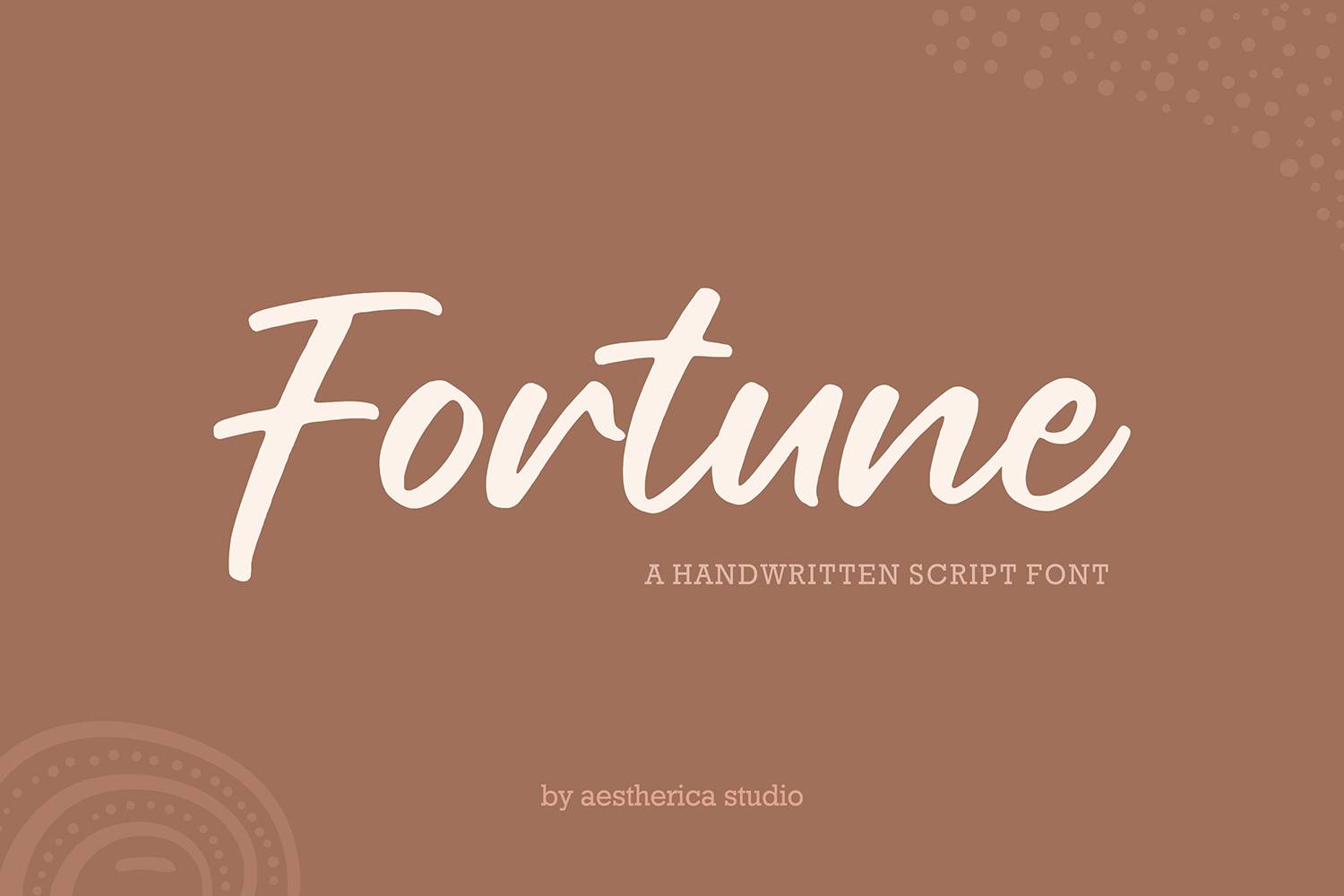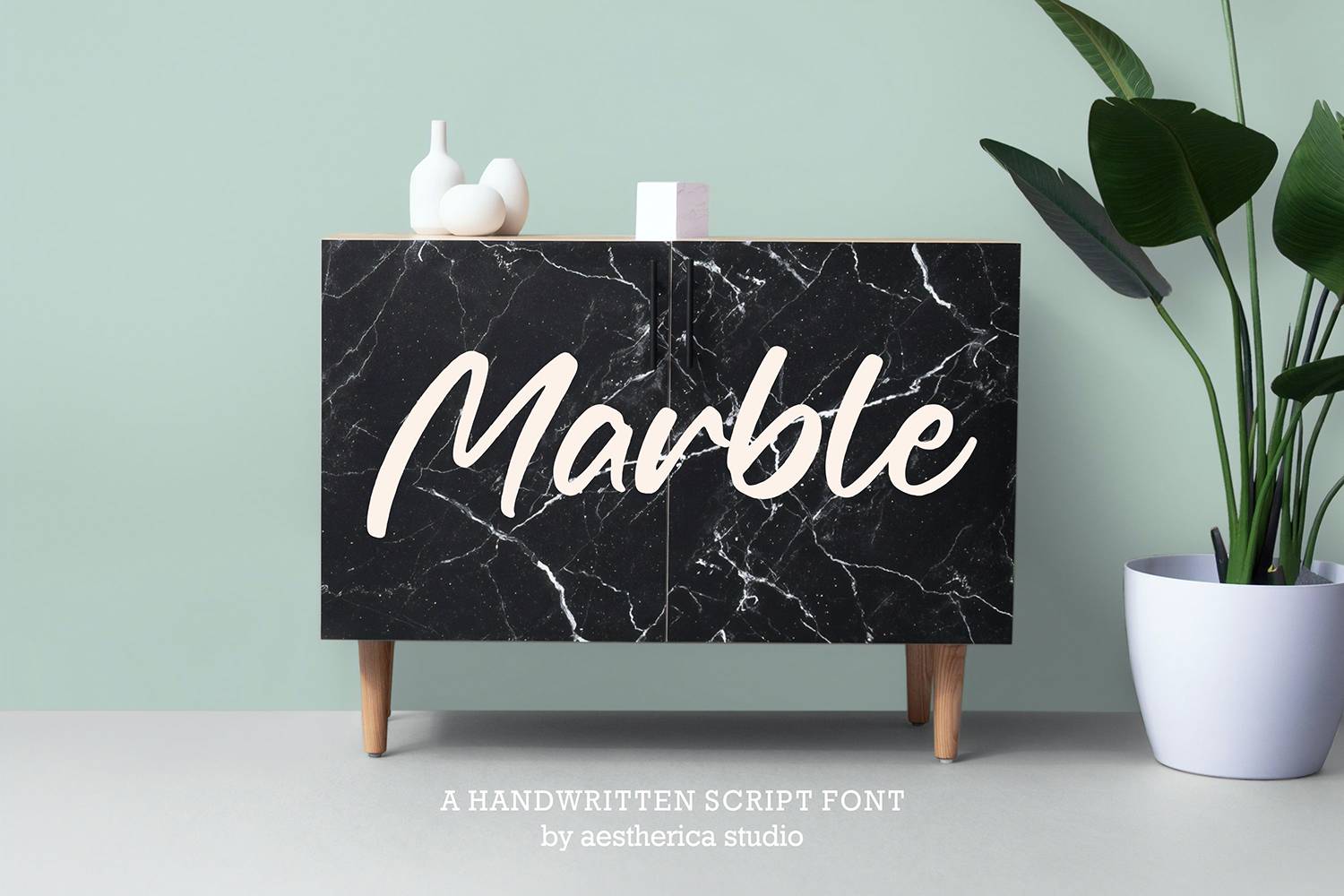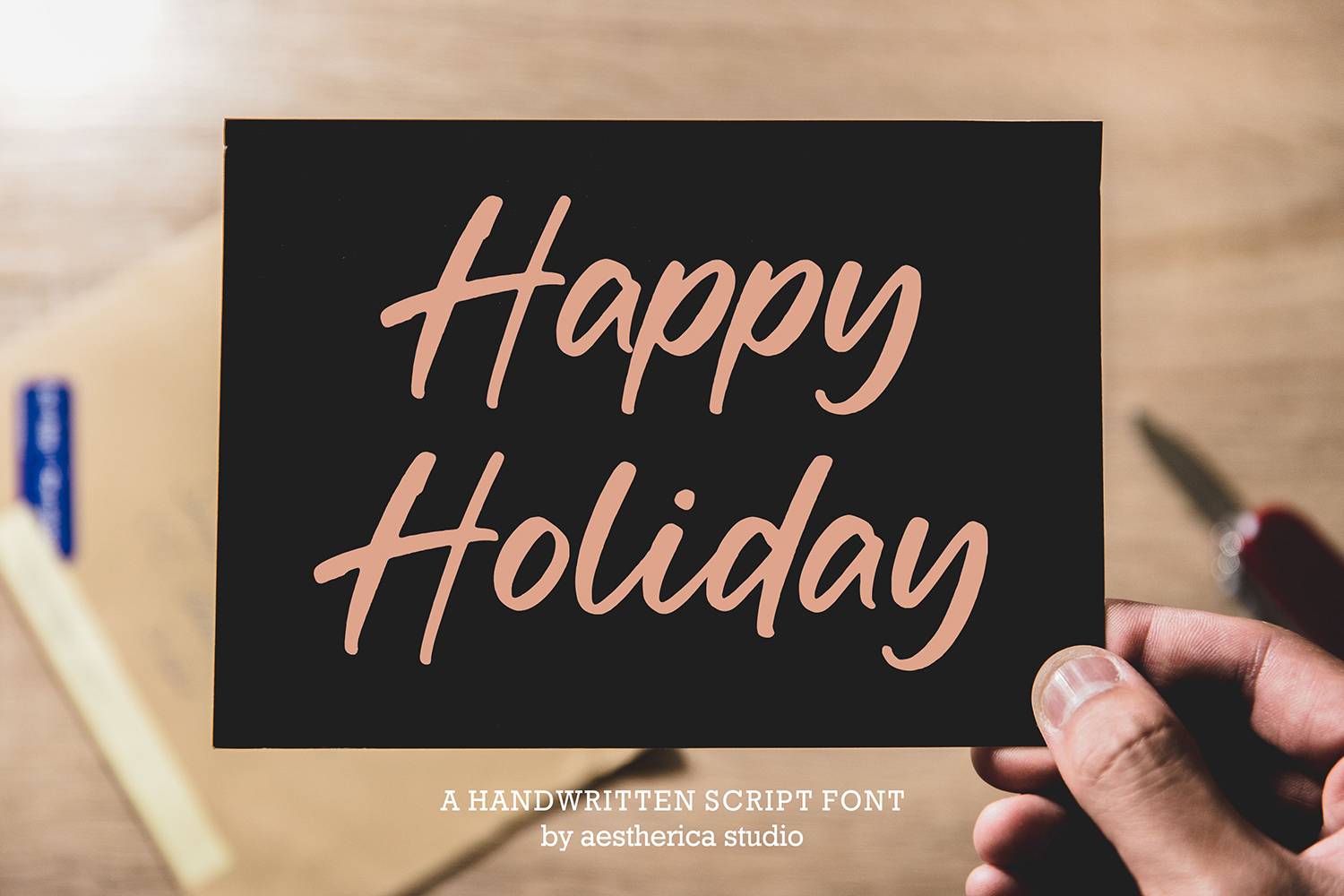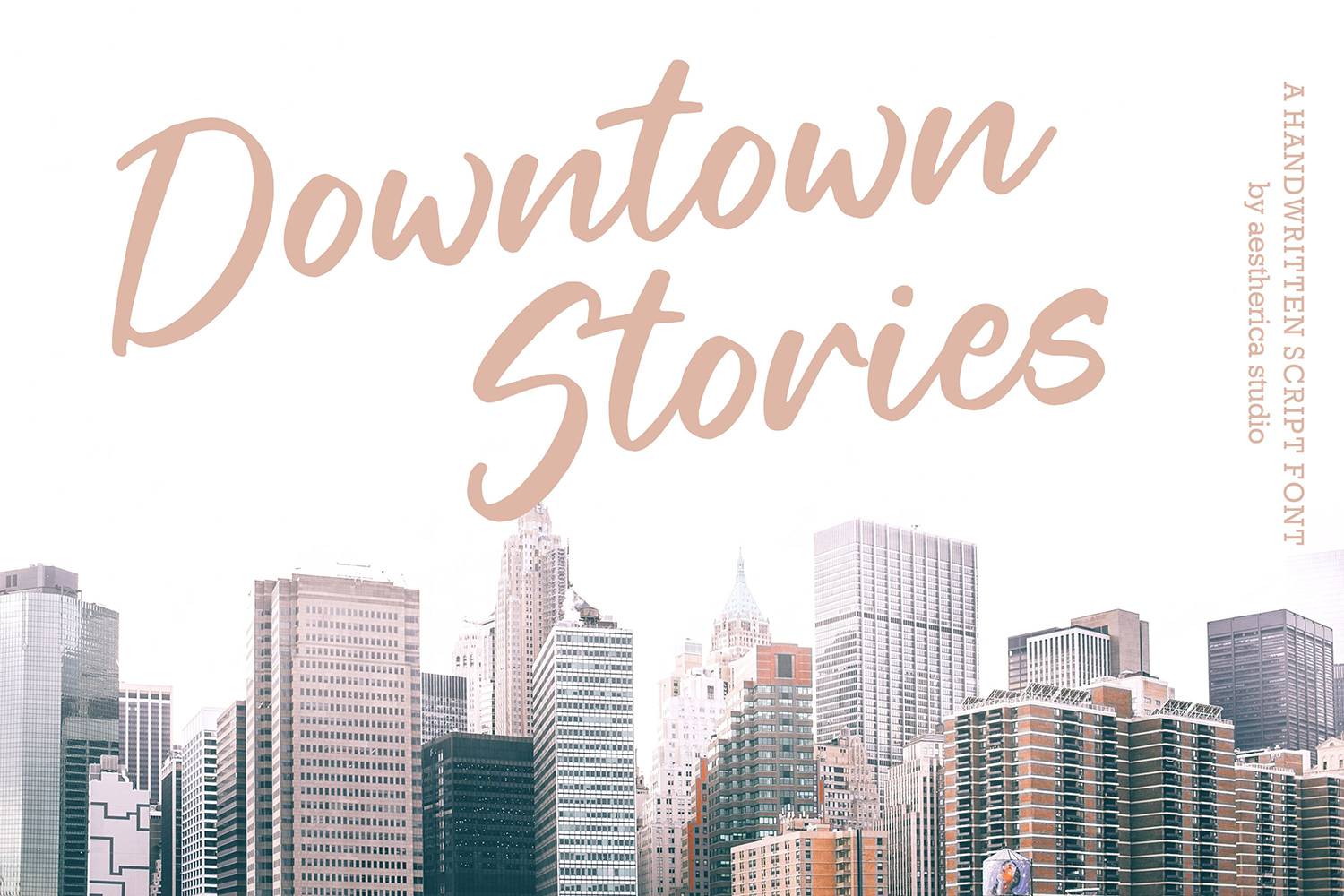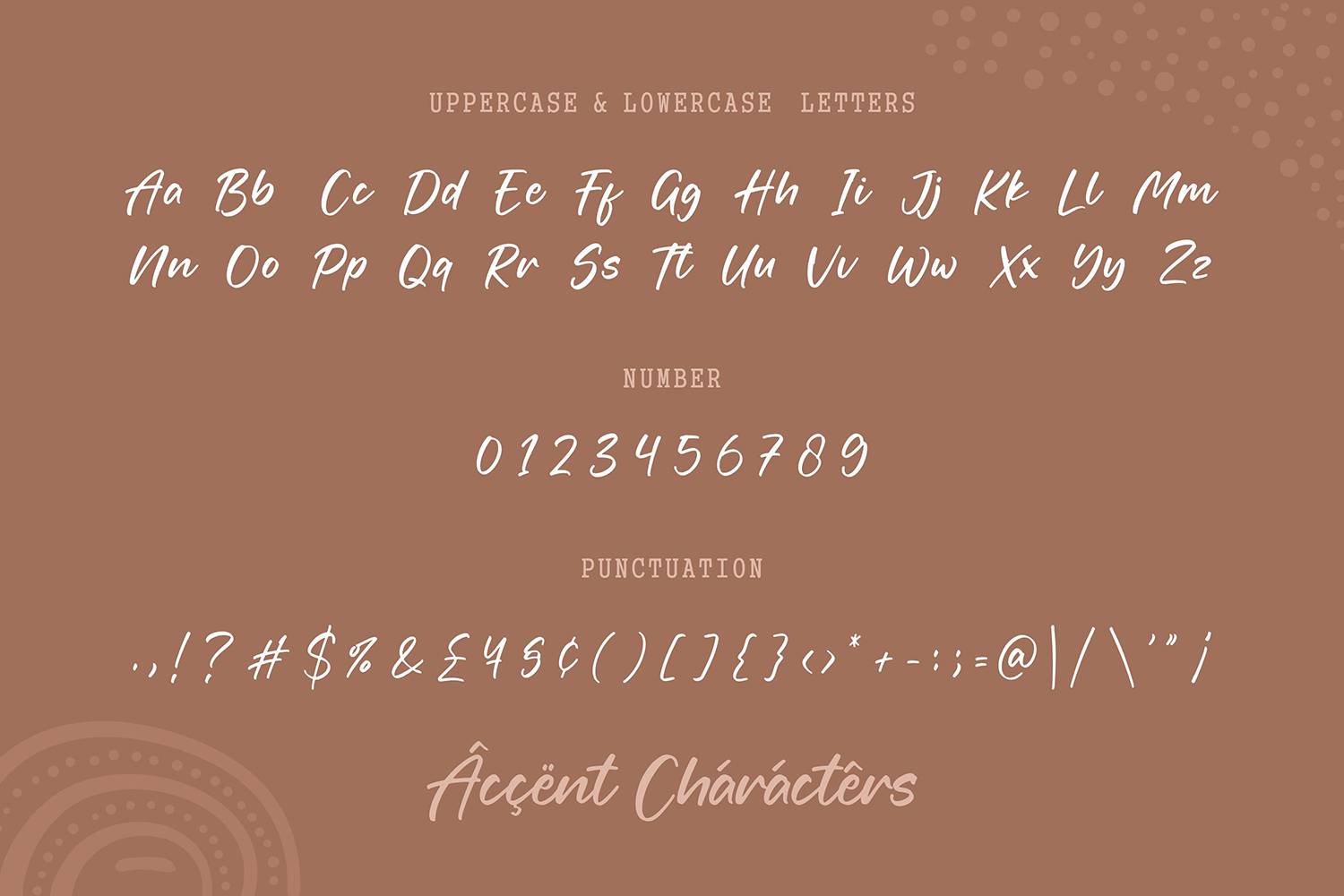
Fortune is a casual script font with a smooth and flowing handwritten style, featuring medium weight and a slightly condensed width that gives it a friendly yet refined appearance. Its consistent stroke contrast and lively letterforms make it ideal for branding, invitations, and expressive headlines where a warm, personal touch is desired. This font works beautifully in creative and informal contexts, lending an approachable and stylish vibe to texts.
Fortune Font
About Fortune Font